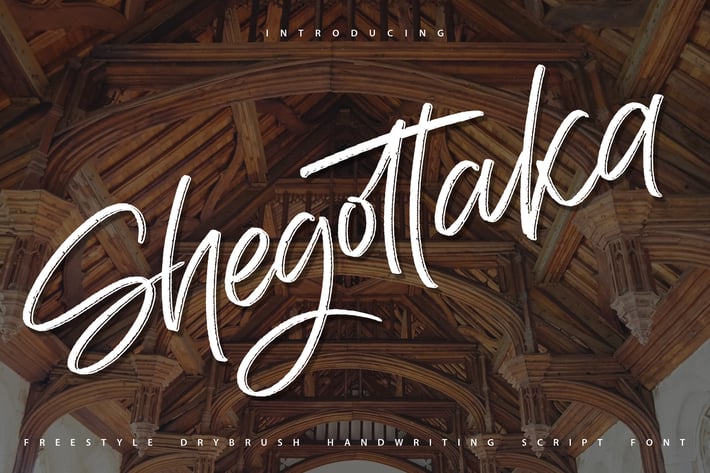
Shegottaka | Drybrush Handwriting Script Font
Shegottaka | Drybrush Handwriting Script Font with a calligraphy style, So beautiful on invitation like greeting cards, branding materials, business cards, quotes, posters, and more!